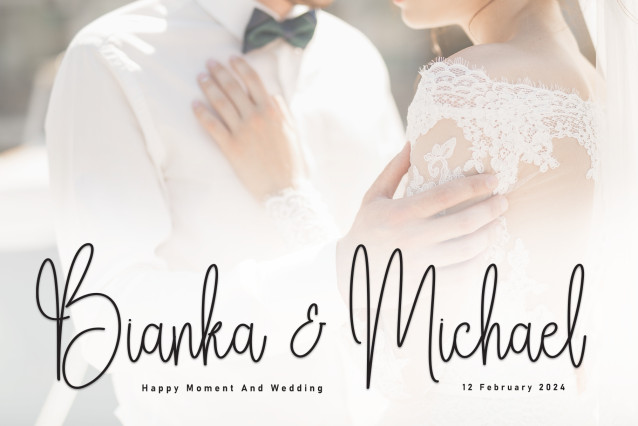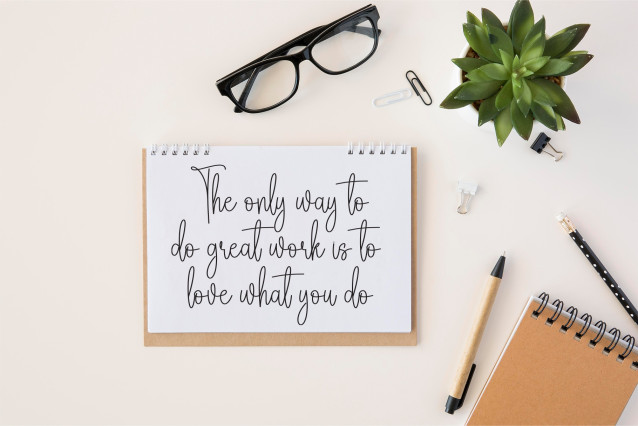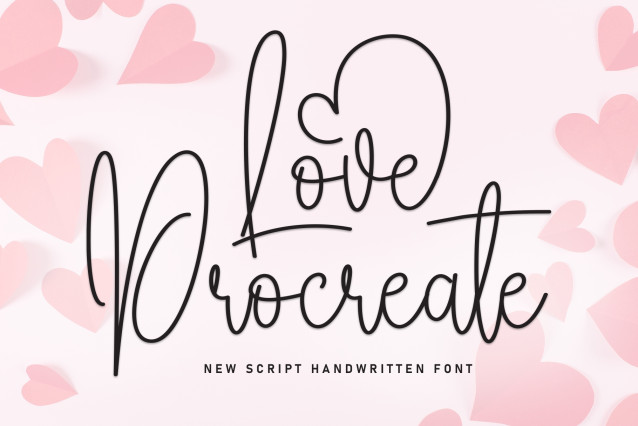
Love Procreate Font
Love Procreate Font – special creative products for you, our products will give you an extraordinary experience. The latest style letters are perfect for wall displays, wedding invitations, social media post logos, advertisements, product packaging, product designs, labels, photography, watermarks, invitations, stationery, and any project that requires taste handwriting.